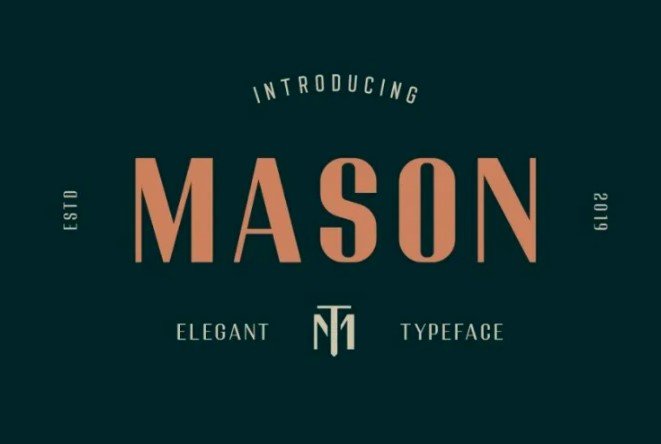
Introducing Mason Sans Serif Font, a modern and highly refined typeface preferred by top graphic designers. This font offers exceptional clarity and features impressively readable characters, along with a diverse stylistic set, all available for free.
It contains a highly unique character set that is suitable for covers, branding projects as well. It contains elegant legible characteristics which are perfectly fine for all kinds of complex graphic design works.
Of course you can use the Mason Sans Serif for your logo as well as all other graphic designs projects.